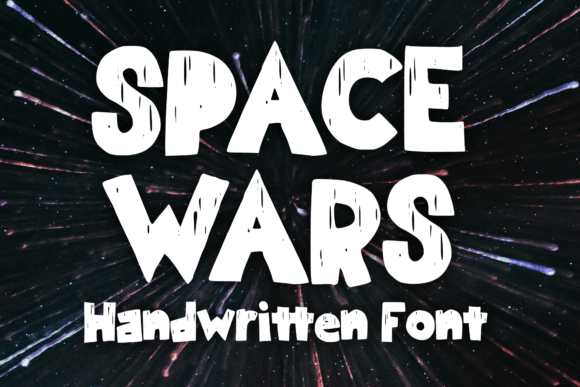
Journey through the cosmos with Space Wars Font, a celestial spectacle that will ignite your creativity. Crafted by the visionary minds at MVMET, this display font transports you to a realm where imagination knows no bounds. As you effortlessly glide through the alphabet, you'll discover a universe of possibilities waiting to be explored.
Adorn your designs with the cosmic elegance of Space Wars Font. Let your imagination soar as you create designs that capture the essence of distant galaxies and far-off worlds. From t-shirts that shimmer with stardust to book covers that evoke the mysteries of the cosmos, Space Wars Font is your passport to a boundless realm of creativity.
Unleash your inner artist and let Space Wars Font guide you through a celestial symphony of design. Create greeting cards that carry messages of love and friendship across the vast expanse of space. Transform stickers into miniature portals to other dimensions, where whimsy and wonder intertwine. With Space Wars Font, the possibilities are as infinite as the universe itself.
Embrace the versatility of Space Wars Font and let it ignite your creative spark. Its adaptable nature seamlessly blends with a myriad of design styles, effortlessly elevating your creations. Whether you're crafting posters that harken back to the golden age of space exploration or designing logos that evoke the futuristic promise of tomorrow, Space Wars Font is your trusted companion on this cosmic voyage.
Fall under the spell of Space Wars Font, a display font that echoes the vastness of the universe and the boundless potential of human creativity. Embark on this extraordinary journey and let your designs shine with the brilliance of a thousand stars.